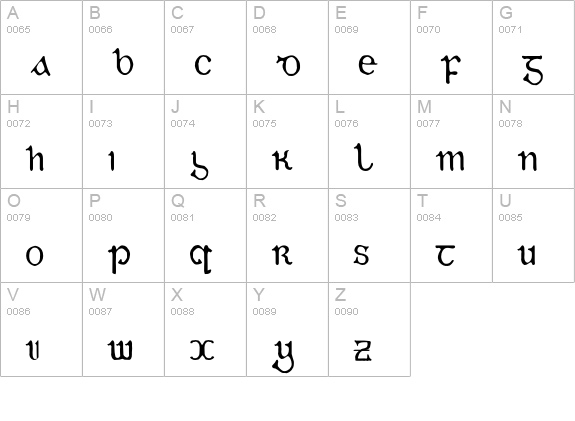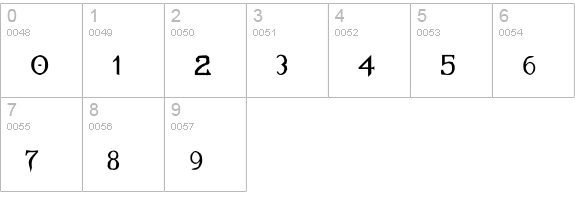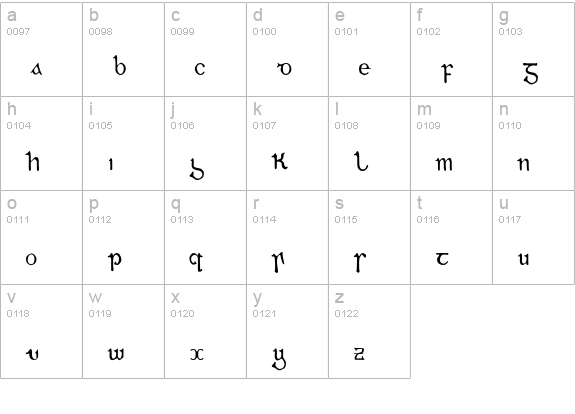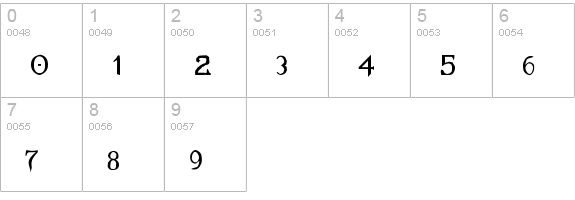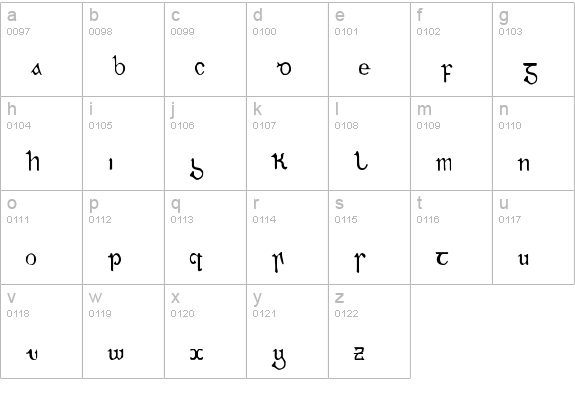
Gaeilge Font Details
Introducing Gaeilge font, a stunning typeface that beautifully captures the essence of the Irish language. With its elegant and intricate design, Gaeilge font brings a touch of traditional Celtic charm to any project. Whether you're creating invitations for a Gaelic wedding, designing a poster for a cultural event, or simply want to add a touch of Irish heritage to your designs, Gaeilge font is the perfect choice. And the best part? Gaeilge font is completely free! That's right, this exquisite typeface can be downloaded freely at FontsMarket.com. We believe in making high-quality fonts accessible to all, and Gaeilge font is no exception. Now you can effortlessly incorporate the beauty of the Irish language into your projects, without breaking the bank. Gaeilge font showcases a harmonious balance between traditional Celtic letterforms and modern design elements. Its graceful curves and delicate strokes create a sense of elegance and sophistication, while still maintaining readability and legibility. Each letter is meticulously crafted, ensuring that every word set in Gaeilge font is a visual masterpiece. With a wide range of weights and styles, Gaeilge font offers versatility and flexibility for any design project. Whether you need a bold and impactful headline or a subtle and refined body text, Gaeilge font has you covered. Its extensive character set includes all the necessary accents and diacritics for writing in the Irish language, making it a valuable asset for Irish speakers and learners alike. Download Gaeilge font today at FontsMarket.com and unlock a world of creative possibilities. Let the beauty of the Irish language shine through your designs with this remarkable typeface. Whether you're designing for print or digital, Gaeilge font will bring a touch of Gaelic magic to your work. Don't miss out on this incredible opportunity to enhance your design projects with the beauty and elegance of Gaeilge font.